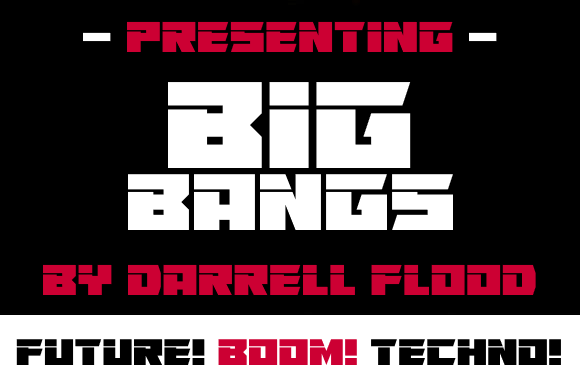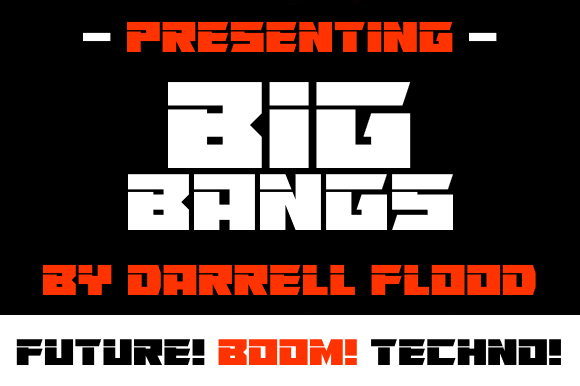
Introducing Big Bangs Font: The Ultimate Futuristic Typeface for Sci-Fi Enthusiasts
Are you a designer, crafter, or sci-fi enthusiast looking for a font that captures the essence of a futuristic, high-tech world? Look no further than Big Bangs Font, a robot-like typeface that embodies the sleek, otherworldly style of science fiction. In this article, we’ll explore the features, benefits, and uses of Big Bangs Font, and why it’s the perfect choice for your next project.
What is Big Bangs Font?
Big Bangs Font is a unique, futuristic typeface designed to evoke the feeling of advanced technology, alien encounters, and space explorations. Its robot-like aesthetic is reminiscent of classic sci-fi movies, video games, and literature, making it an ideal choice for projects that require a bold, out-of-this-world look.
Key Features of Big Bangs Font
- Robot-like design: Big Bangs Font features a distinctive, mechanical style that’s perfect for creating a futuristic atmosphere.
- Slick and modern: The font’s clean lines, sharp edges, and minimalist approach make it look sleek and contemporary.
- Sci-fi inspired: Big Bangs Font is designed to capture the essence of science fiction, with a style that’s reminiscent of classic sci-fi movies, books, and games.
- High-tech feel: The font’s futuristic design makes it perfect for projects that require a high-tech, cutting-edge look.
- Versatile: Big Bangs Font can be used for a wide range of projects, from posters and titles to logos and branding.
Uses for Big Bangs Font
Big Bangs Font is perfect for a variety of projects, including:
- Alien encounters and space explorations: Use Big Bangs Font to create titles, posters, and other materials that capture the excitement of encountering the unknown.
- Cyberpunk and sci-fi stories: Add a touch of futurism to your writing with Big Bangs Font, perfect for book covers, titles, and chapter headings.
- Video games and animations: Use Big Bangs Font to create bold, eye-catching titles and UI elements that evoke a sense of high-tech adventure.
- Branding and logos: Create a futuristic brand identity with Big Bangs Font, perfect for tech startups, robotics companies, and innovative businesses.
- Crafting and DIY projects: Use Big Bangs Font to add a touch of sci-fi flair to your crafting and DIY projects, such as signs, labels, and decorations.
Why Choose Big Bangs Font?
So why choose Big Bangs Font over other fonts? Here are just a few reasons:
- Unique style: Big Bangs Font offers a distinctive, one-of-a-kind style that’s sure to stand out.
- Ease of use: The font is easy to read and use, making it perfect for a wide range of projects.
- High-quality design: Big Bangs Font is designed to high standards, with clean lines, sharp edges, and a professional look.
In conclusion, Big Bangs Font is the ultimate futuristic typeface for sci-fi enthusiasts, designers, and crafters. Its unique, robot-like design and sleek, modern aesthetic make it perfect for a wide range of projects, from alien encounters and space explorations to cyberpunk stories and high-tech branding. With its ease of use, high-quality design, and flexibility, Big Bangs Font is the perfect choice for anyone looking to add a touch of futurism to their work.